Descender
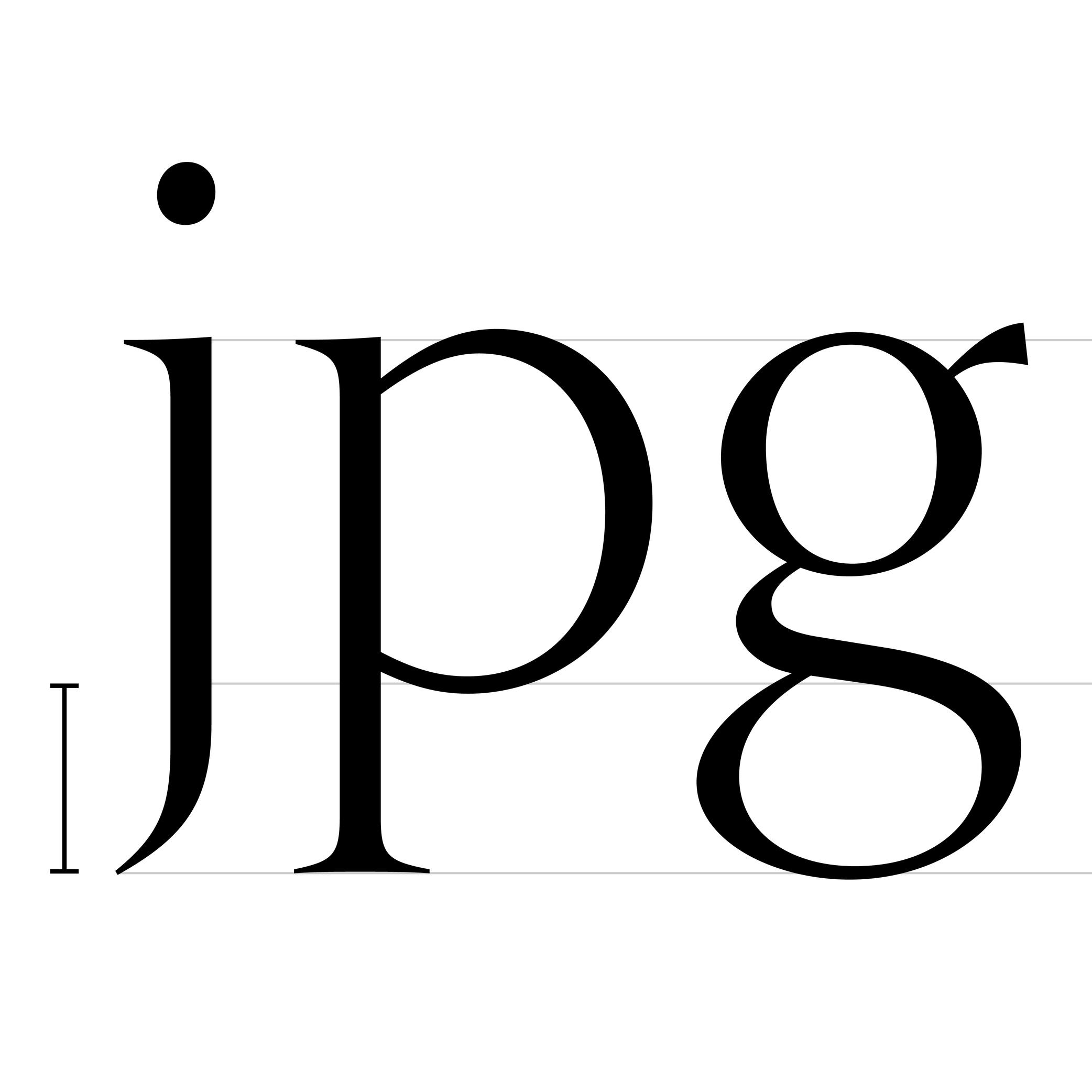
The parts of lowercase letters (such as p, q or y), old style figures or some punctuation symbols going below the baseline are called descenders.
In the same typeface, all descenders need to have the same height for overall consistency.
On the opposite side, parts going above the x-height are ascenders, like in letters b, d or f.
Both ascenders and descenders don’t necessarily need to have the same length. In general, descenders are shorter than ascenders.